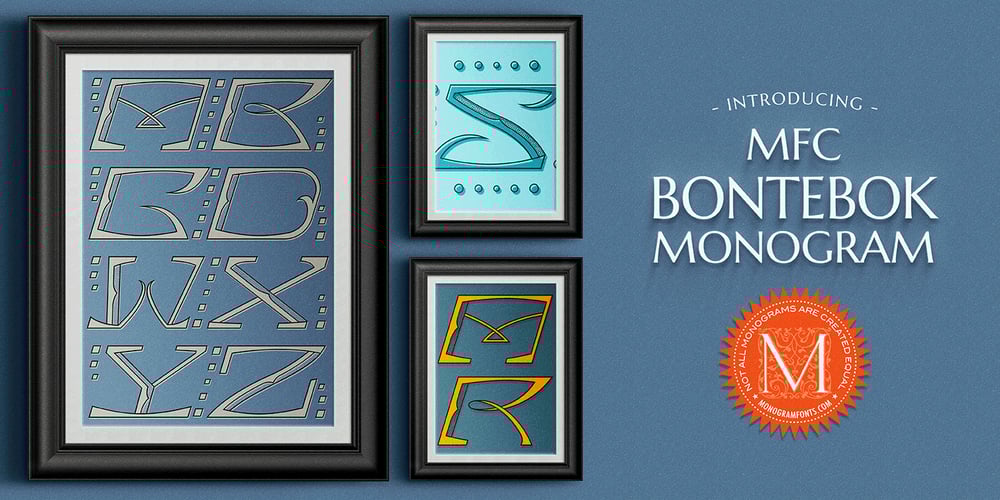
MFC Bontebok Monogram Font Family was designed by Jim Lyles, Brian J. Bonislawsky and published by Monogram Fonts Co.. MFC Bontebok Monogram contains 4 styles and family package options. The inspiration source for Bontebok Monogram is a unique and inventive hand-drawn letterset from a vintage embroidery publication combining a stylized geometric oblique all capitals letterset with bracketing marks to make a monogram. First drawn as outlined letterforms with stipple shading, we’ve created multiple variations for you to design with. While this monogram was originally intended to adorn handkerchiefs, it has many other possibilities. Download and view the MFC Bontebok Monogram Guidebook if you would like to learn a little more.